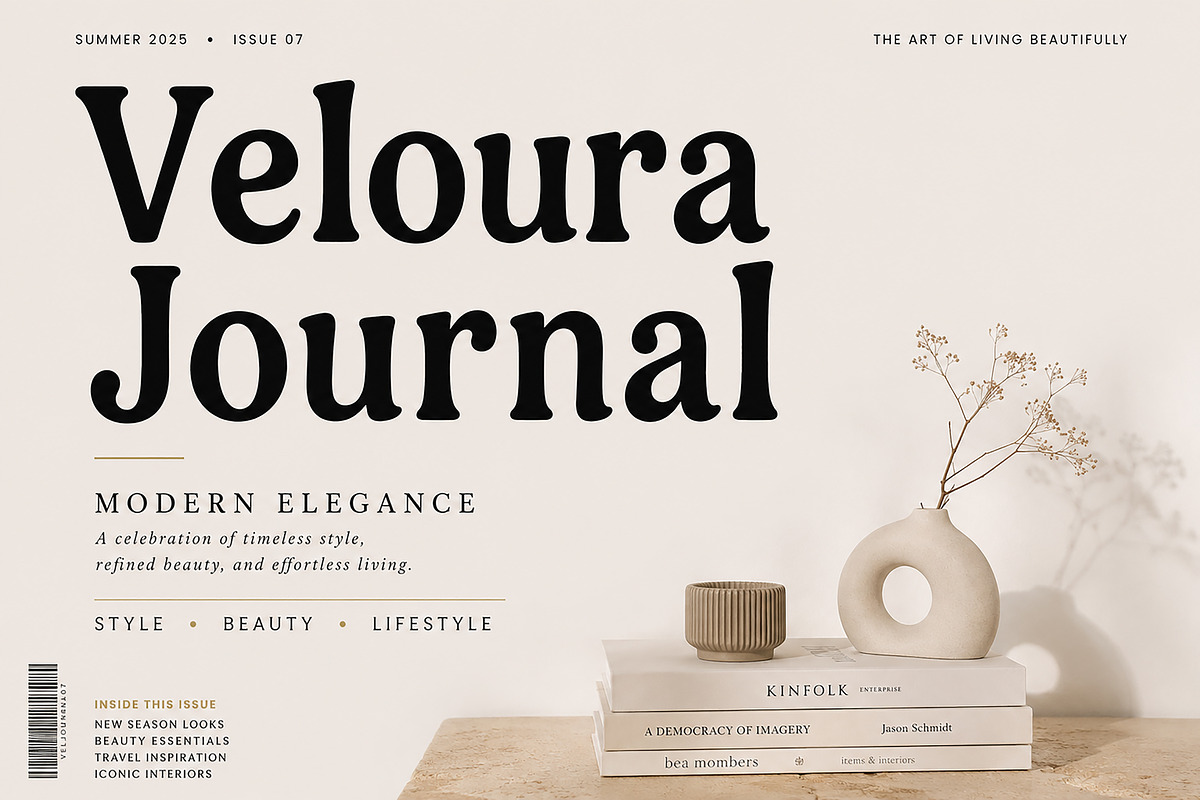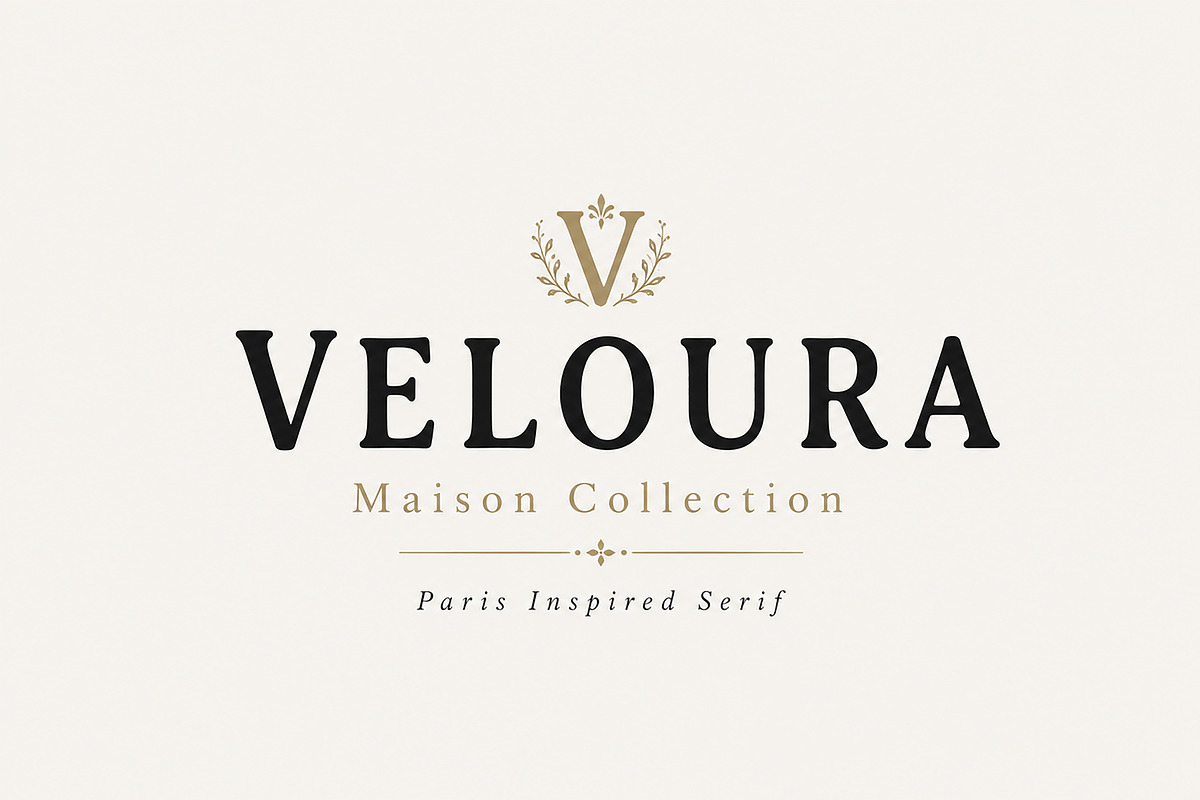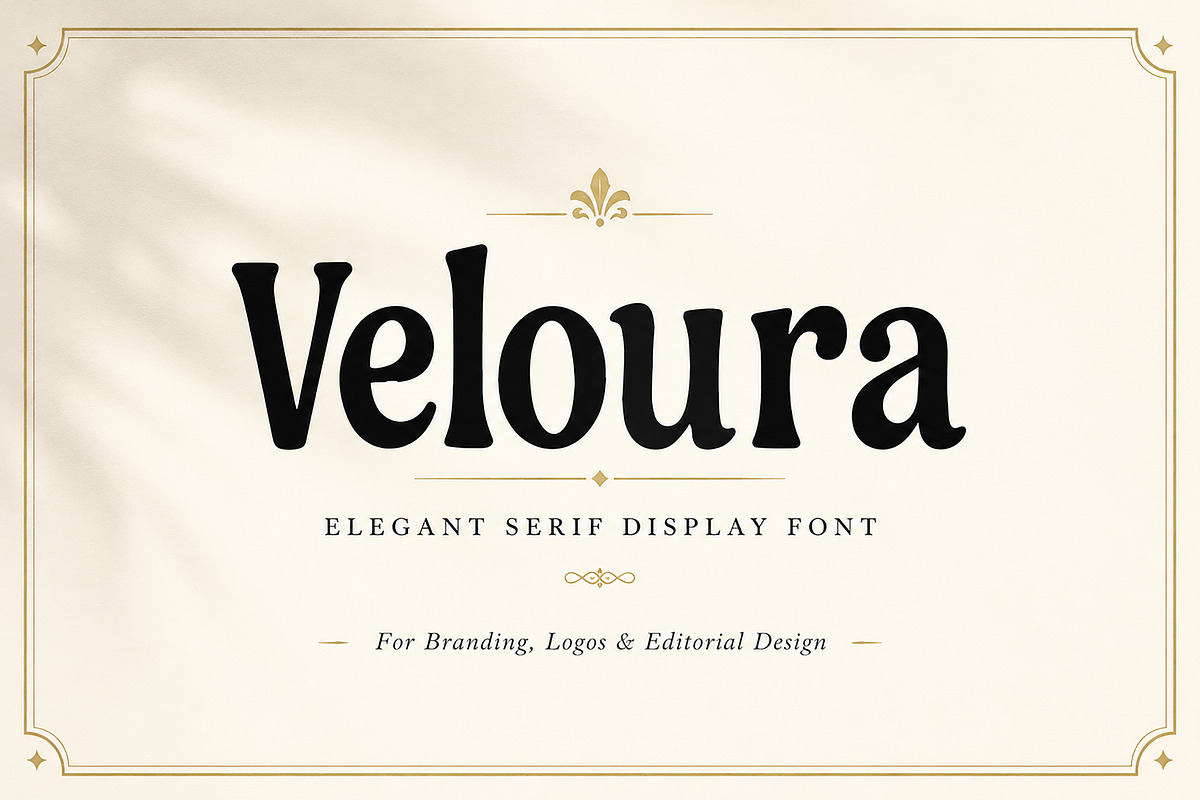
Veloura
Veloura – Elegant Serif Display Font
Introducing Veloura, an elegant serif display font crafted to bring sophistication, charm, and timeless beauty to your creative projects. With its graceful curves, bold personality, and refined letterforms, Veloura is designed for premium branding and luxury-inspired designs.
Whether you're creating a fashion logo, perfume packaging, editorial layouts, wedding stationery, beauty branding, or social media graphics, Veloura delivers a distinctive and stylish look that instantly elevates your typography.
Its modern-classic aesthetic makes it perfect for designers who want to create elegant, memorable, and high-end visual identities.
Luxury Branding
Fashion Logos
Beauty & Skincare Packaging
Perfume Labels
Editorial & Magazine Headlines
Wedding Invitations
Boutique Branding
Cosmetic Packaging
Posters
Restaurant & Café Branding
Product Labels
Certificates
Premium Marketing Materials
Why You'll Love Veloura
Veloura combines classic serif elegance with a contemporary display style, making it ideal for premium branding projects. Every letter is carefully crafted to create a luxurious and professional appearance while remaining highly readable in headlines and logo designs.
Create beautiful logos, stunning magazine covers, elegant packaging, and unforgettable branding with Veloura.